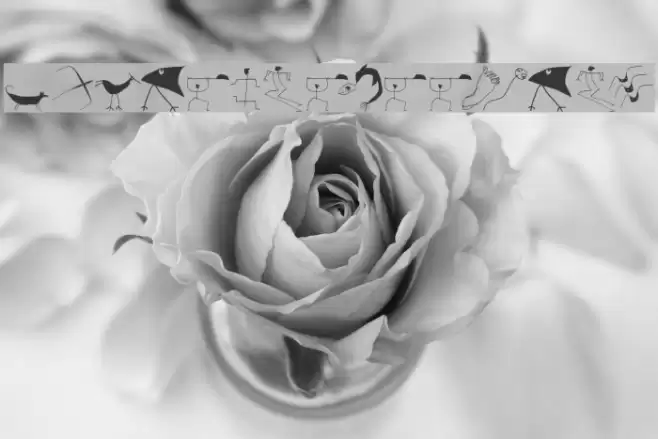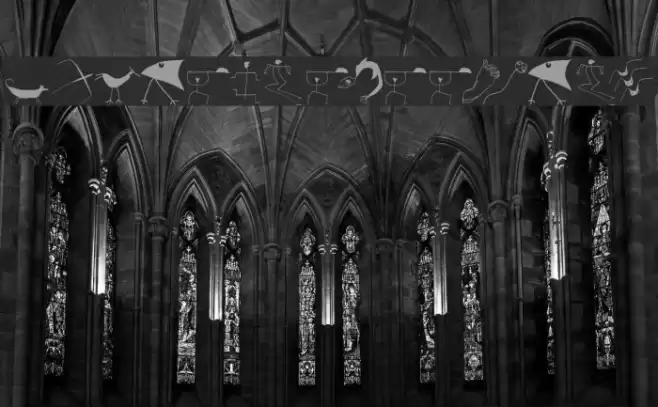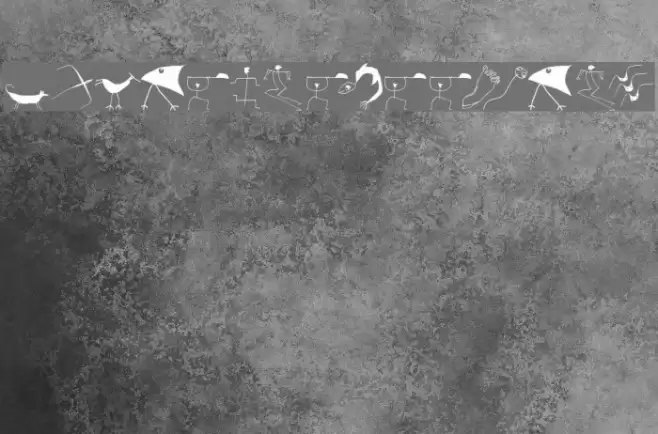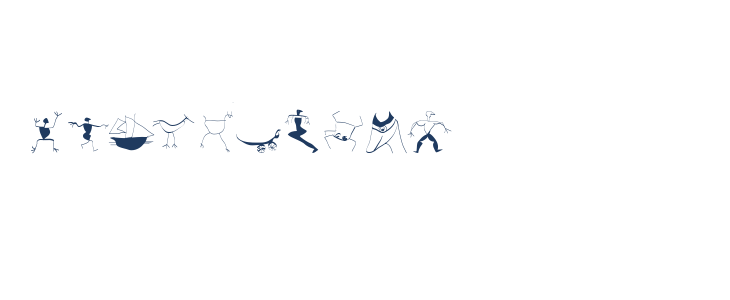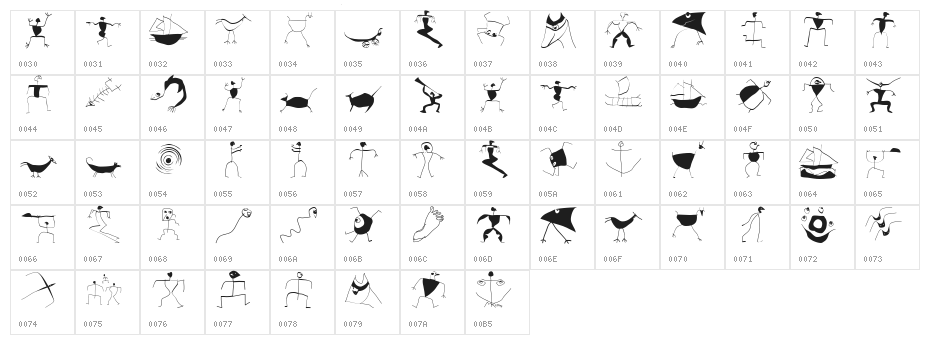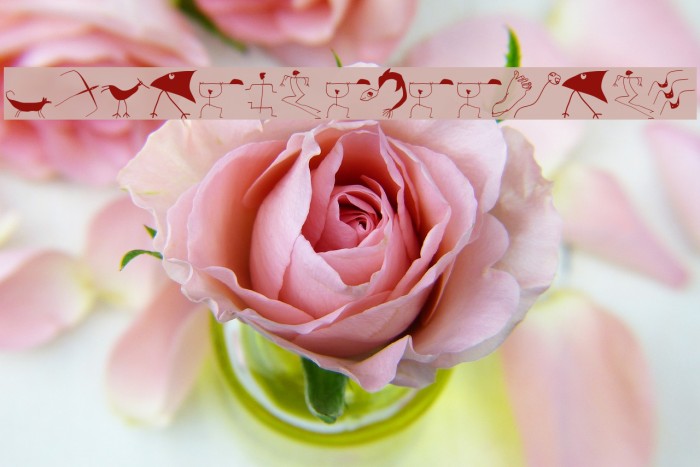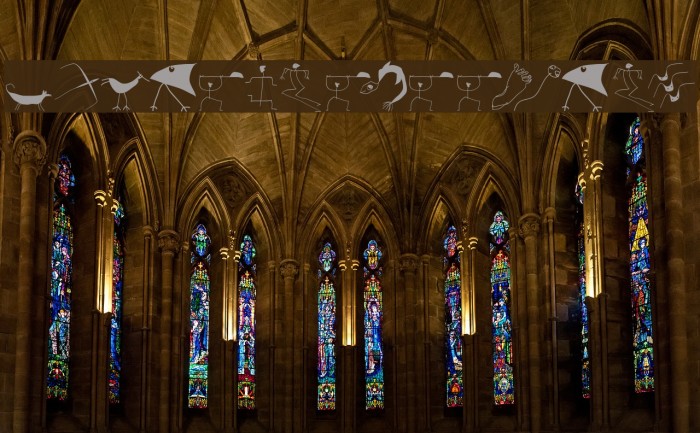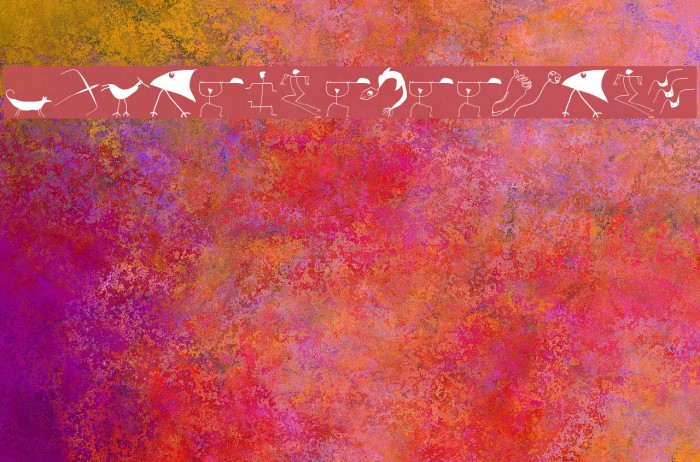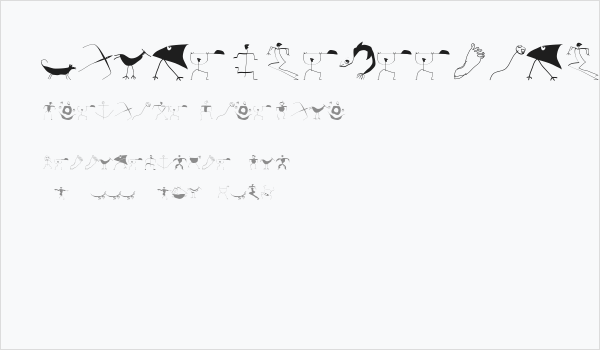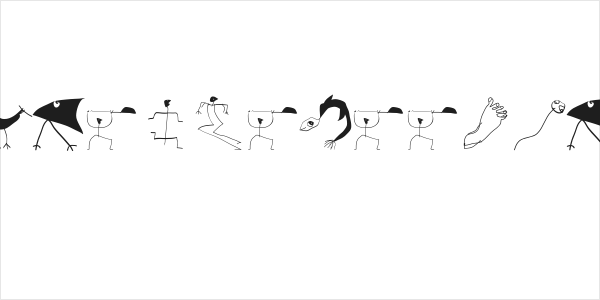
StoneAgeFeelings Font
StoneAgeFeelings Description
This font is a unique and artistic representation of primitive, stone-age inspired symbols and figures. Each character is crafted to resemble ancient cave drawings, featuring stick figures, animals, and abstract shapes. The style is highly decorative, with a playful and whimsical feel. The characters are bold and expressive, capturing a sense of movement and storytelling. This font is not designed for traditional text but rather for creating visual interest and thematic elements in projects that require a prehistoric or primitive aesthetic.
A decorative font inspired by ancient cave drawings and primitive symbols from Uncategorized fonts.
- Proposed Projects: Ideal for themed event posters, educational materials about history or anthropology, children's books with a prehistoric theme, and creative art projects.
- Use Case: Logos, Art projects, Themed posters